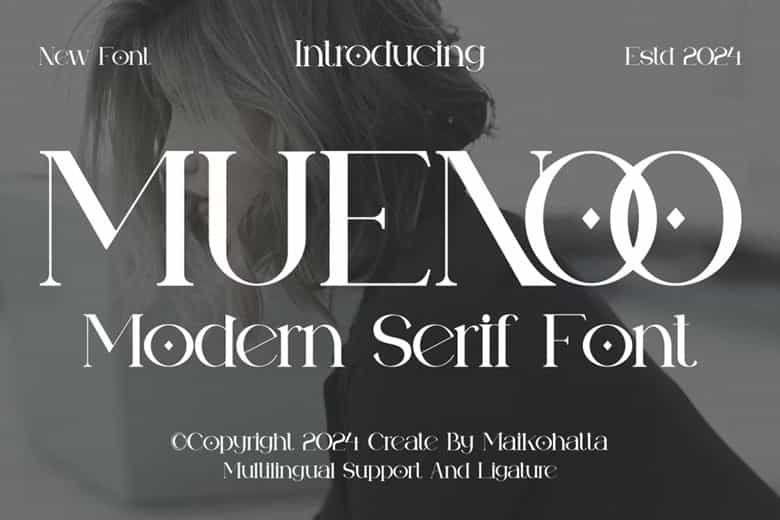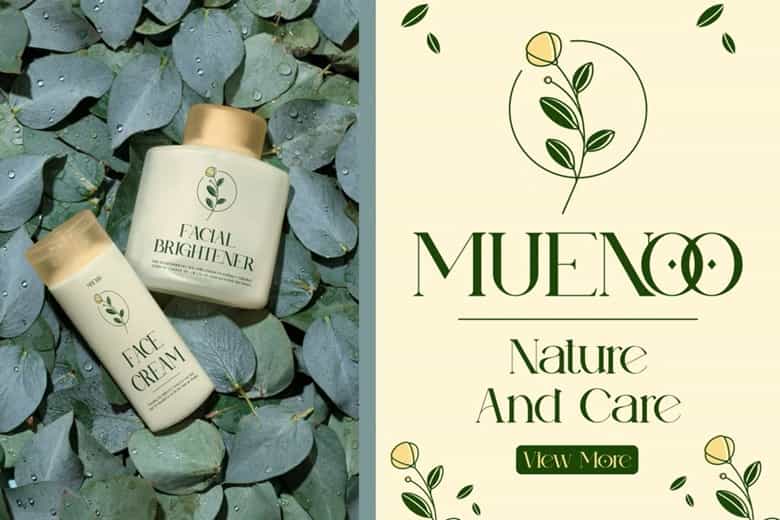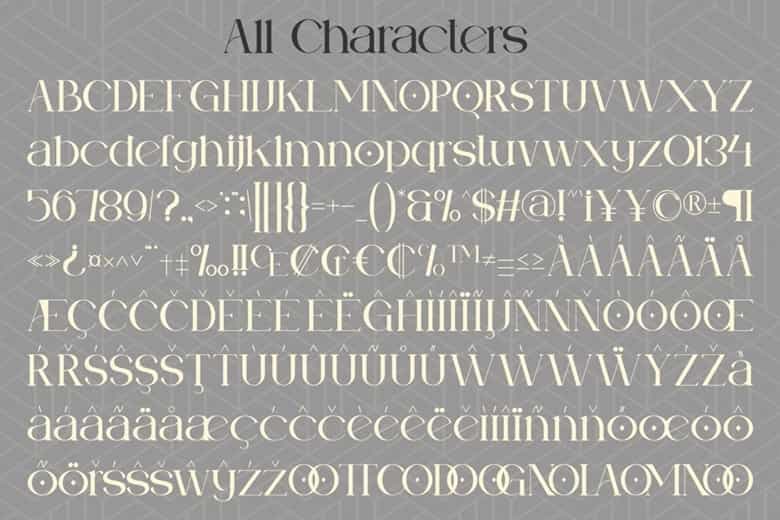
Muenoo is an elegant and modern serif font. The proportion of stroke thickness to fineness is balanced in this font, which renders appealing and easily readable graphics. This contemporary serif type has also been identified by the greater contrast between heavy and thin strokes that gives it a subtle yet prominent feel.